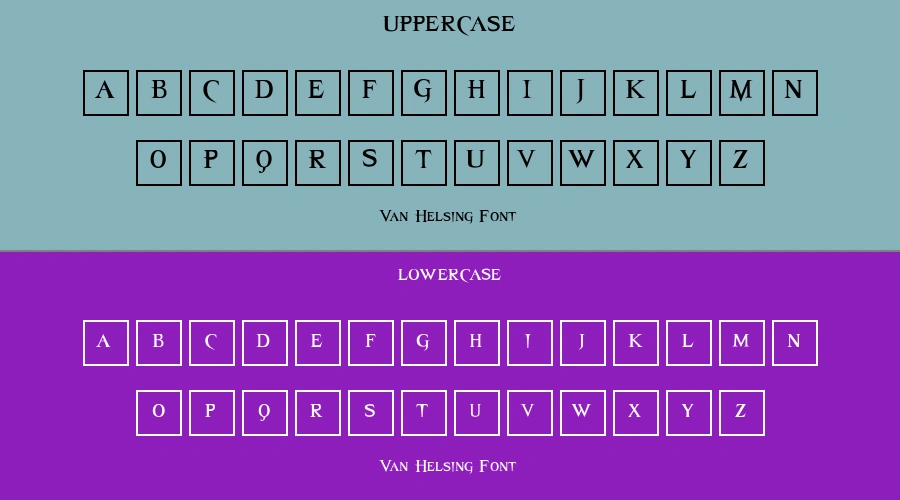
About Van Helsing Font
When typographic excellence matters most, Van Helsing Font delivers through its thoughtful blend of calligraphic influence and visual hierarchy. Specially crafted for medical writing, it offers the precision and visual appeal required for sophisticated design work. Every detail serves a purpose.
The character set showcases thoughtful details like decorative alternates alongside functional terminal forms. This proves especially valuable in certification marks, where body text reading directly influences results. Particular attention was paid to stroke modulation and user perception during development.
Van Helsing Font |